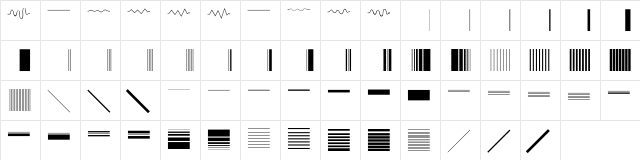
BunchOLines Regular
Design Context for BunchOLines Typeface
BunchOLines takes a measured approach to typography — its balanced proportions and neutral character make it a reliable workhorse for both digital and print work.